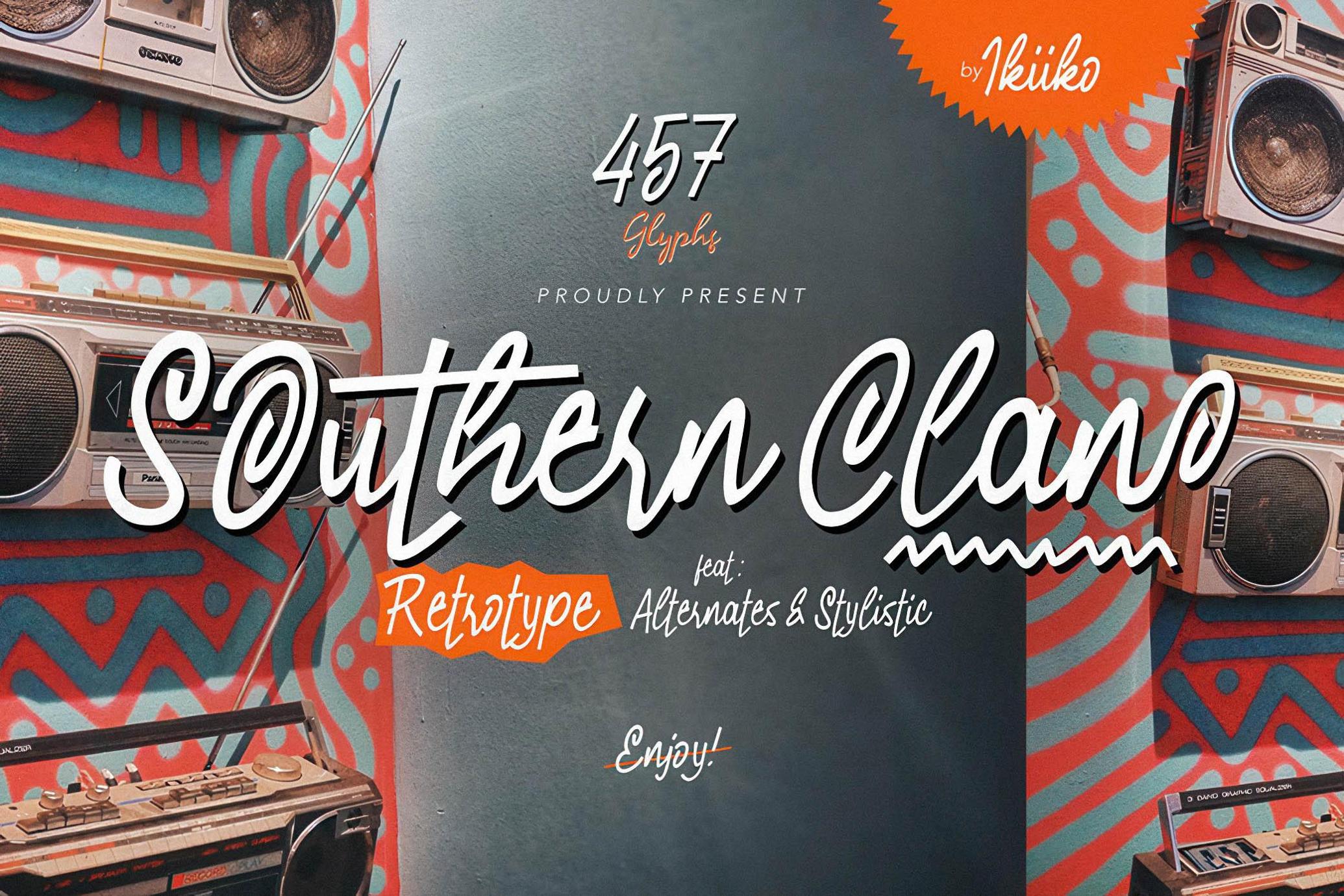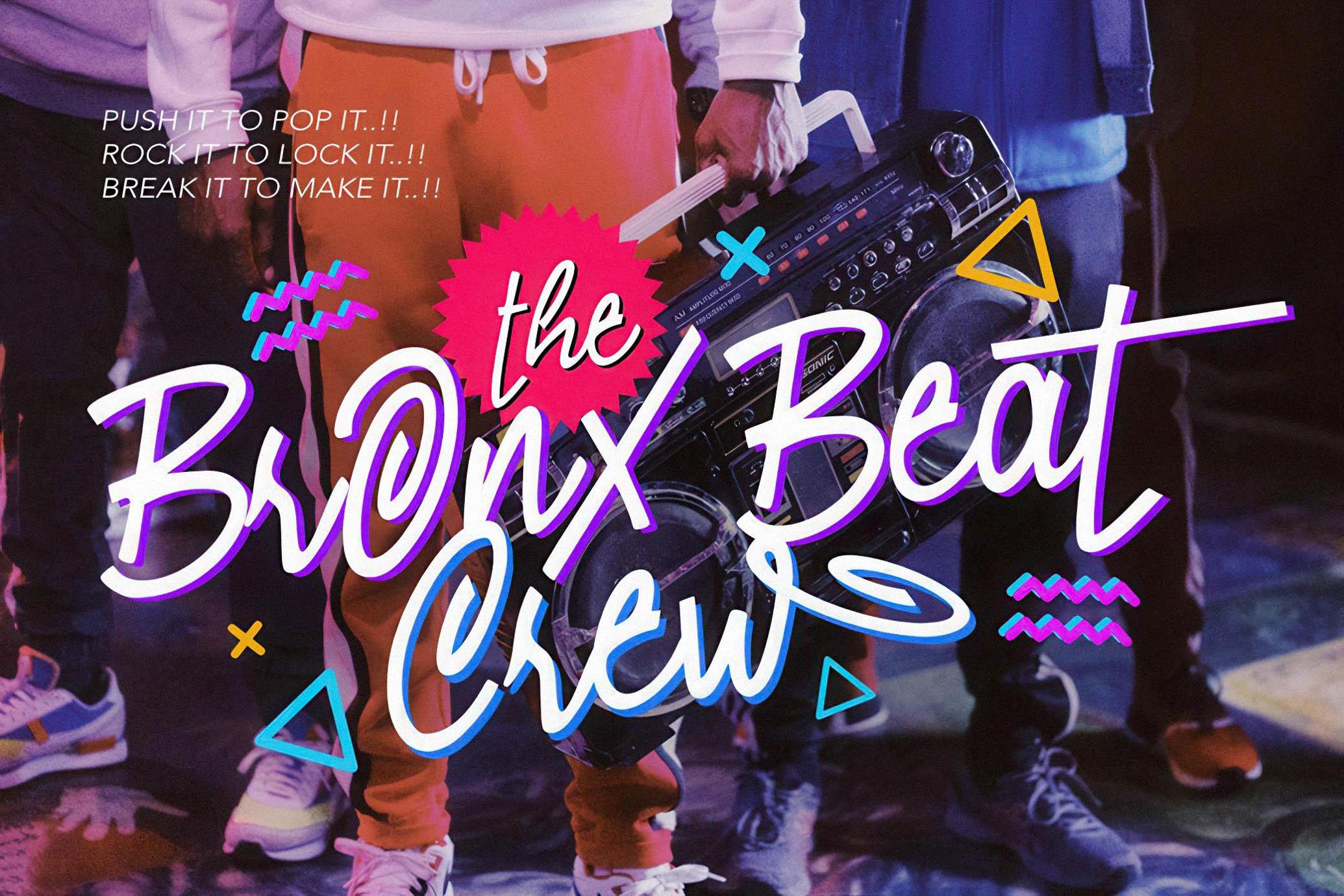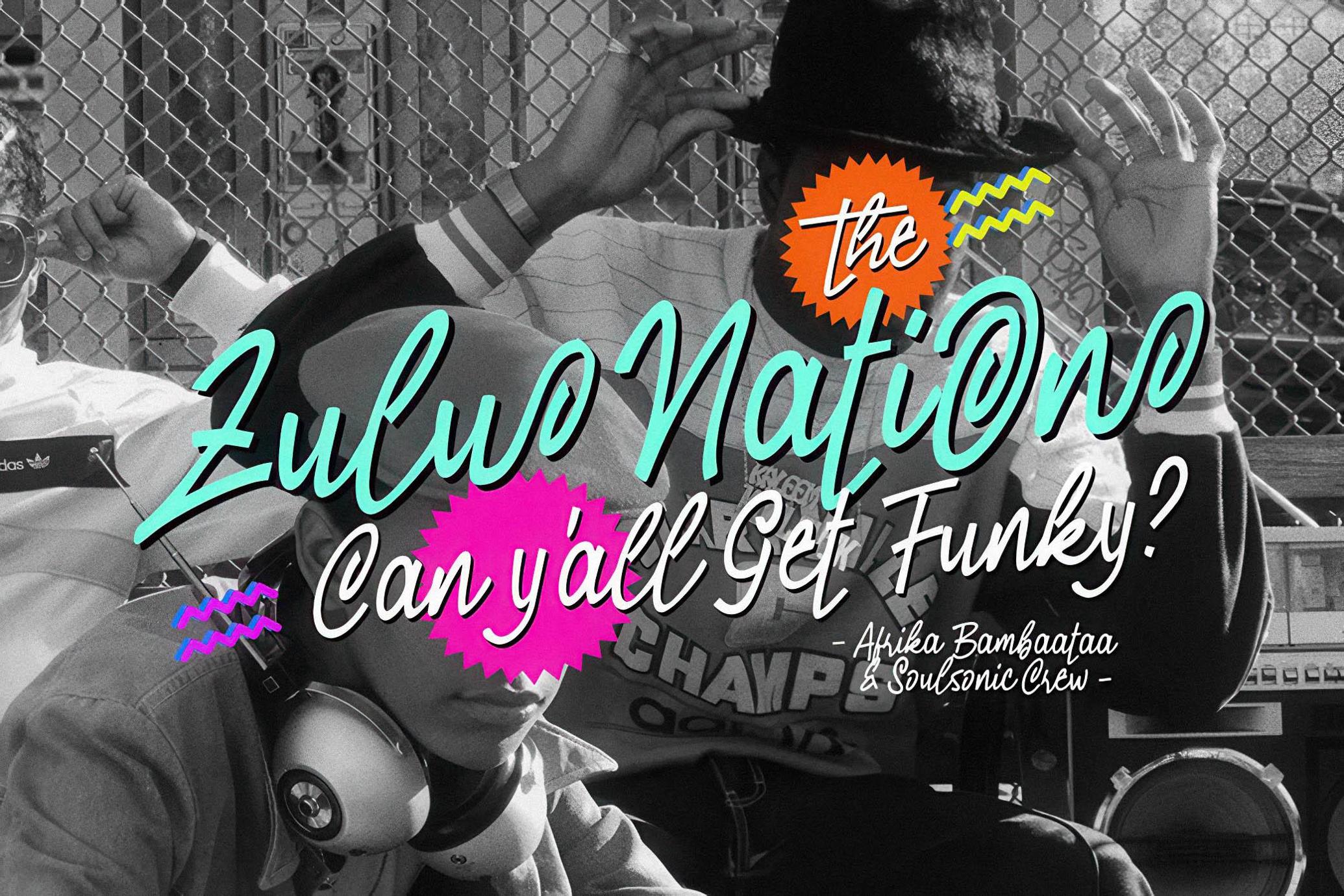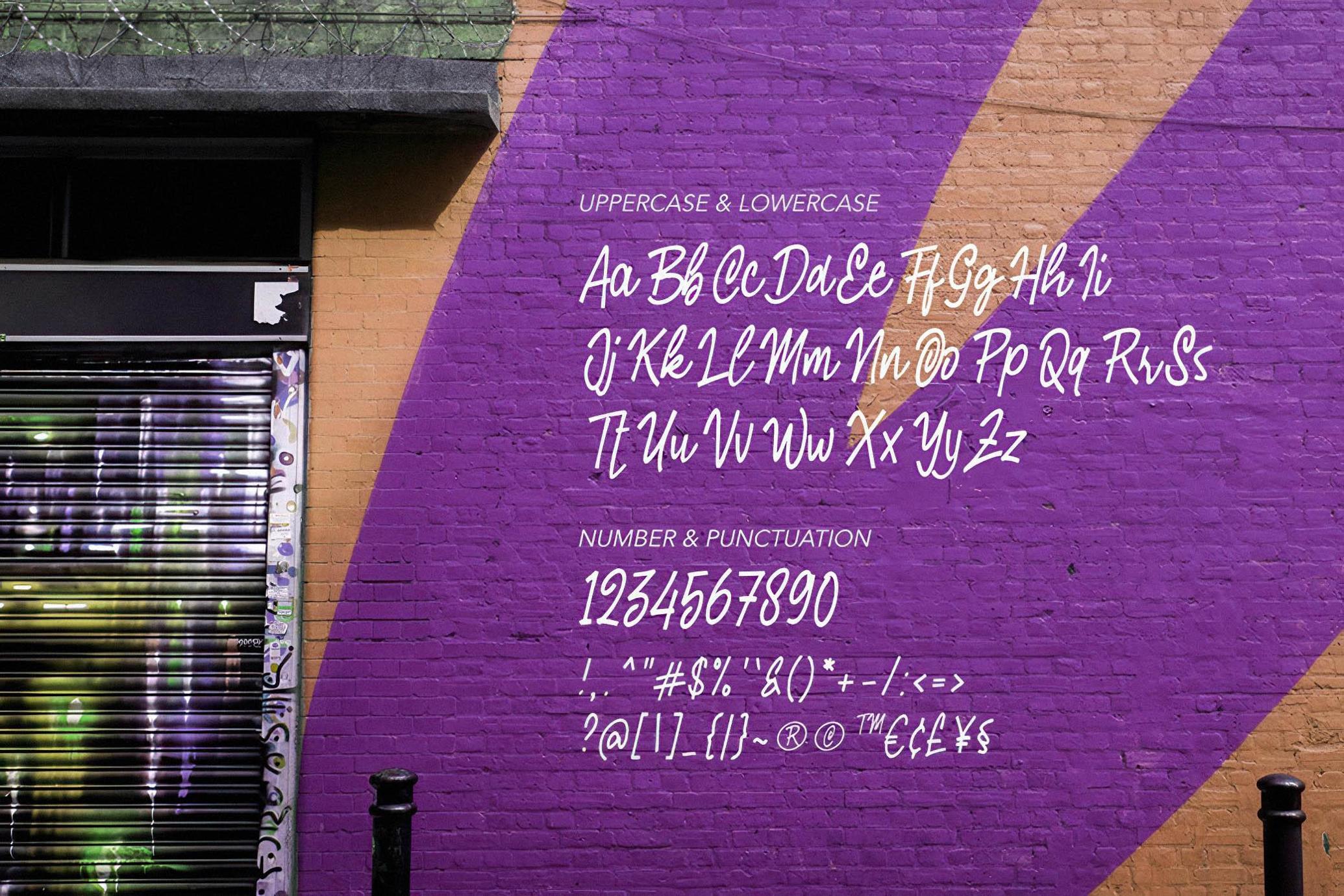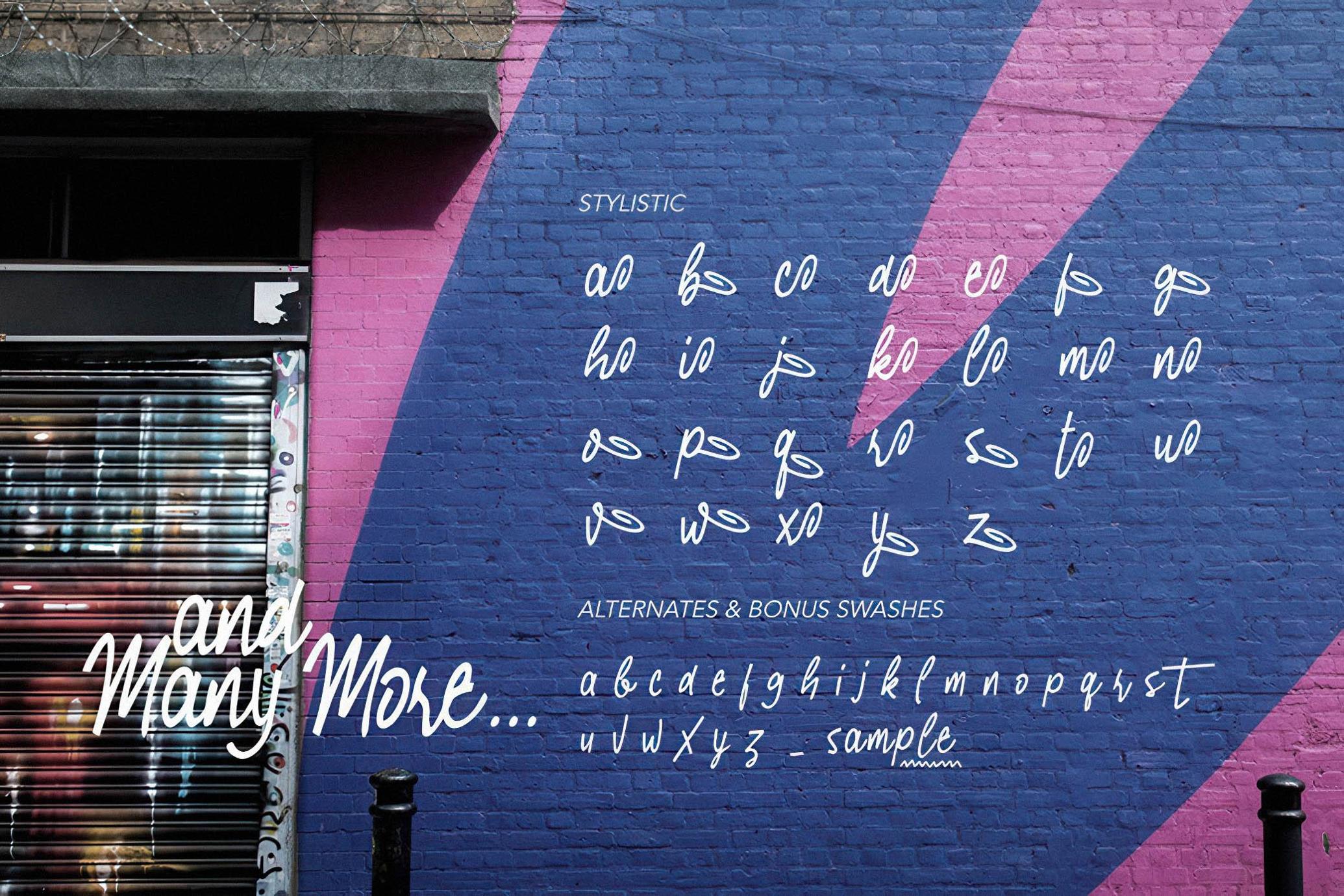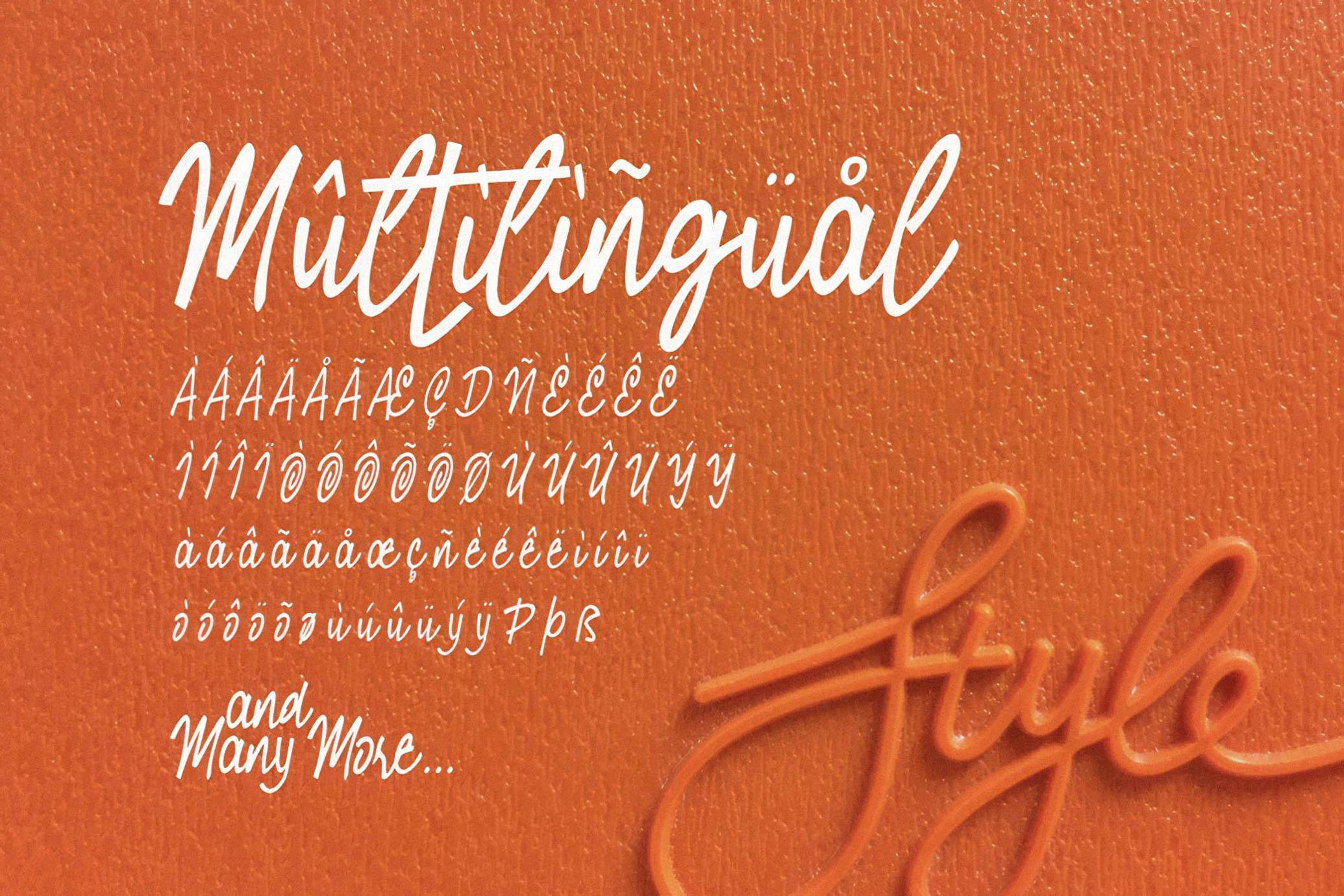
Southern Clan - 80s Font
SouthernClan
An expressive handwriting type with a 80's street graffiti shape. This type is very suitable for making a poster, t-shirt design, magazine header, brand logo, sleeve cover, party flyer, quotes, or simply as a stylish text overlay to any background image.
- Alternates & Stylistic